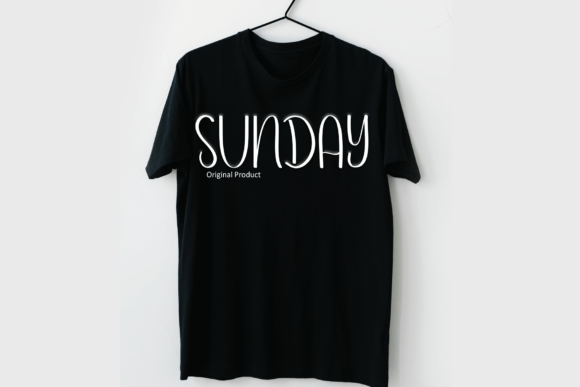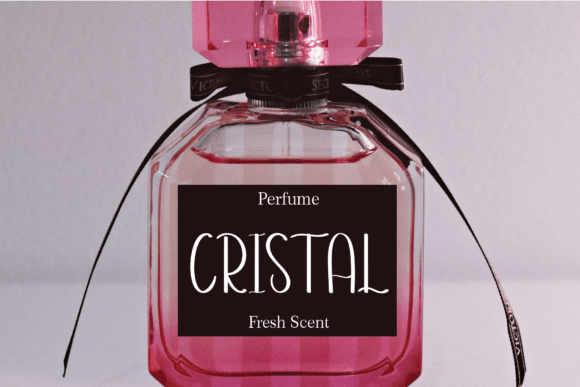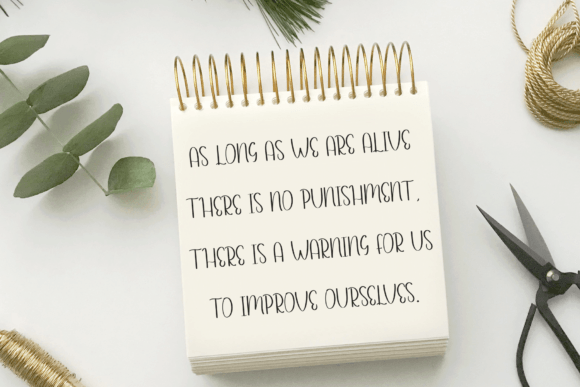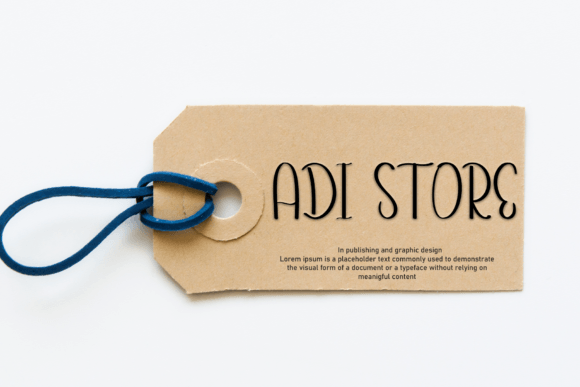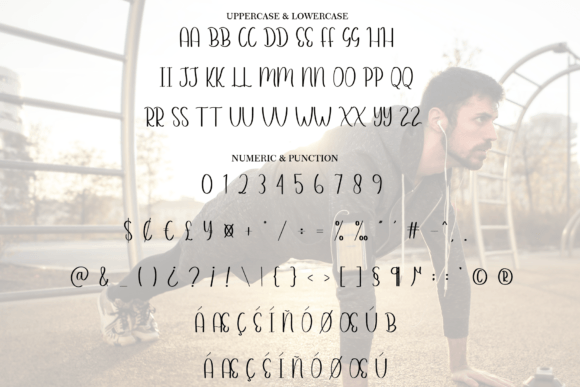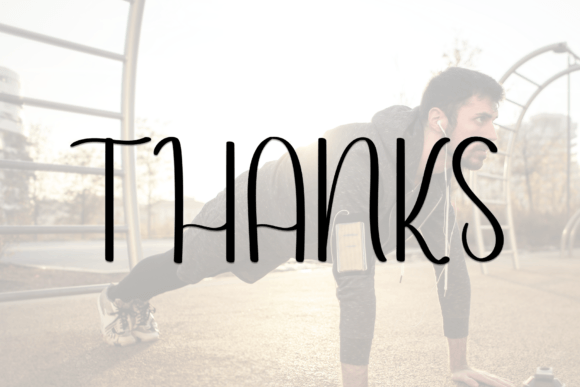
Introducing Body Healthy Font: The Sweet and Friendly Handwritten Font for Your Design Needs
Are you looking for a font that can add a touch of sweetness and friendliness to your designs? Look no further than Body Healthy Font! This beautiful handwritten font is perfect for creating wedding invitations, cards, and other designs that require a fun and playful touch. In this article, we’ll take a closer look at Body Healthy Font, its features, and how you can use it to elevate your designs.
What is Body Healthy Font?
Body Healthy Font is a sweet and friendly handwritten font that’s perfect for designers and crafters who want to add a personal touch to their work. This font is designed to be fresh and cute, making it ideal for a variety of design projects, from wedding invitations and cards to posters and social media graphics.
Key Features of Body Healthy Font
- Handwritten style: Body Healthy Font has a beautiful handwritten style that’s perfect for creating personal and unique designs.
- Sweet and friendly: This font has a sweet and friendly tone that’s sure to capture the attention of your audience.
- Fresh and cute: The font’s fresh and cute style makes it perfect for designs that require a playful touch.
- Easy to read: Despite its handwritten style, Body Healthy Font is easy to read, making it perfect for body text and headings.
Use Cases for Body Healthy Font
Body Healthy Font is a versatile font that can be used for a variety of design projects. Here are some use cases to get you started:
- Wedding invitations: This font is perfect for creating beautiful and unique wedding invitations that set the tone for the big day.
- Cards and stationery: Body Healthy Font is great for creating cards, stationery, and other paper goods that require a personal touch.
- Posters and flyers: This font can add a playful touch to posters and flyers, making them more eye-catching and engaging.
- Social media graphics: Body Healthy Font can be used to create social media graphics that stand out from the crowd and capture the attention of your audience.
Tips for Using Body Healthy Font
Here are some tips for using Body Healthy Font in your designs:
- Pair it with a bold font: Pair Body Healthy Font with a bold font to create a striking contrast that adds visual interest to your design.
- Use it for headings and body text: This font is versatile enough to be used for both headings and body text, making it perfect for creating cohesive designs.
- Experiment with colors: Body Healthy Font looks great in a variety of colors, so don’t be afraid to experiment and find the perfect color scheme for your design.
Body Healthy Font is a beautiful and versatile handwritten font that’s perfect for designers and crafters who want to add a personal touch to their work. With its sweet and friendly tone, fresh and cute style, and ease of use, this font is sure to become a favorite in your design arsenal. Whether you’re creating wedding invitations, cards, posters, or social media graphics, Body Healthy Font is the perfect choice for adding a fun and playful touch to your designs.